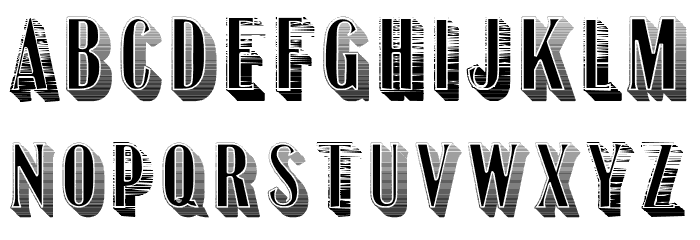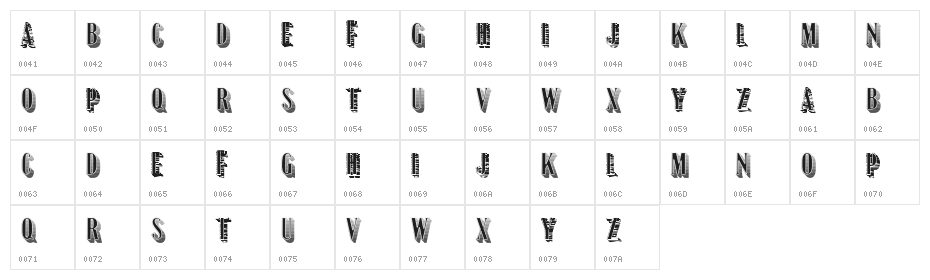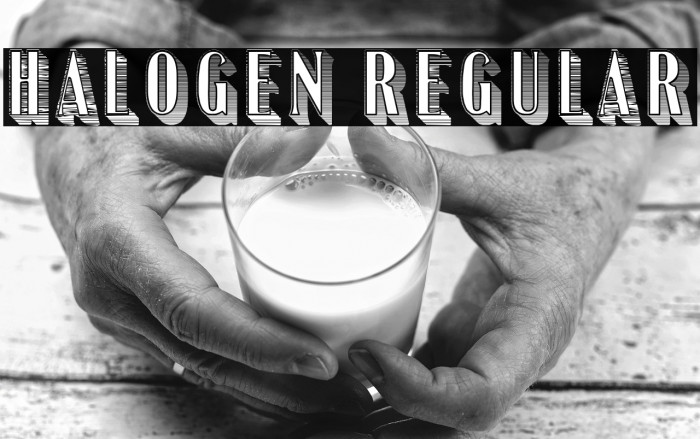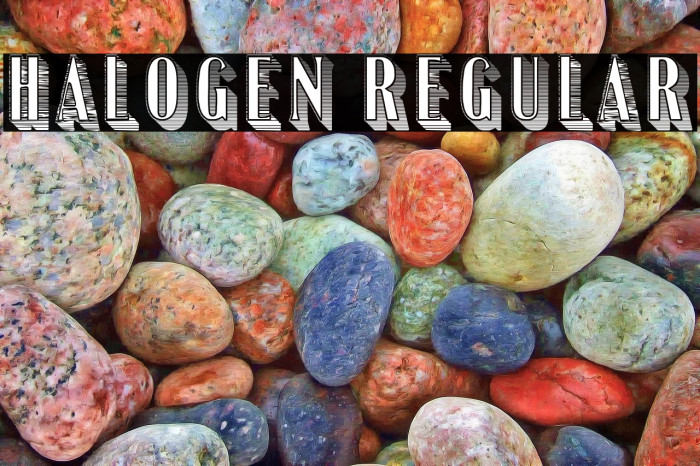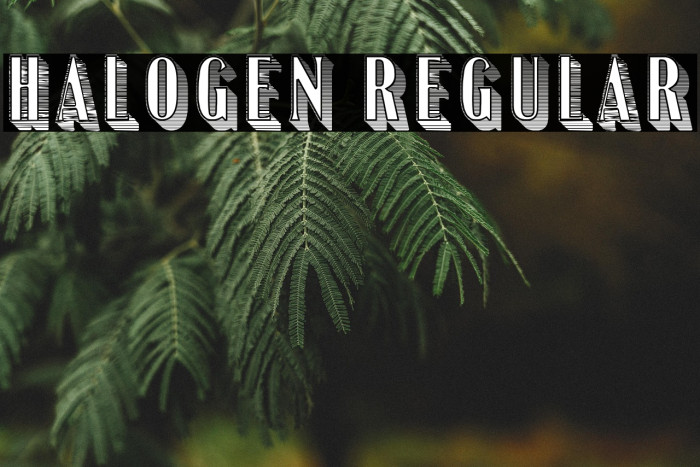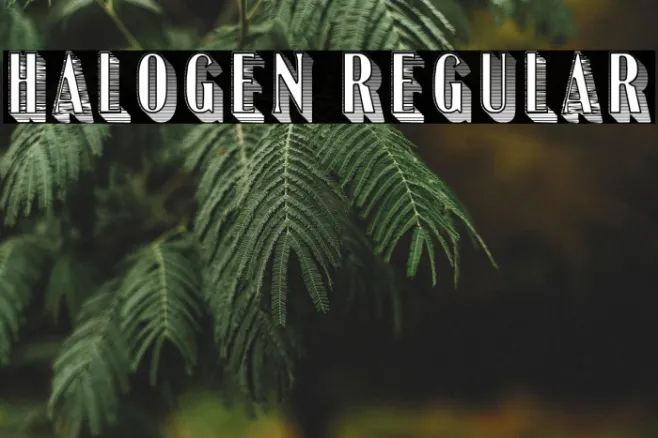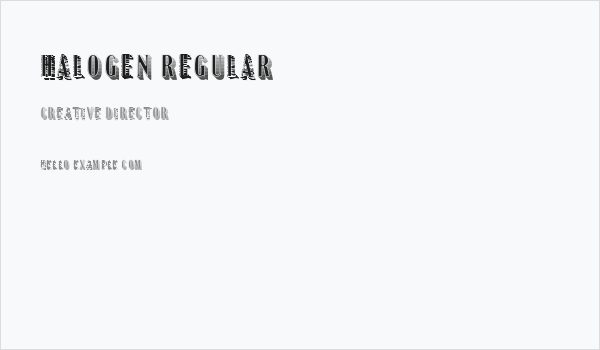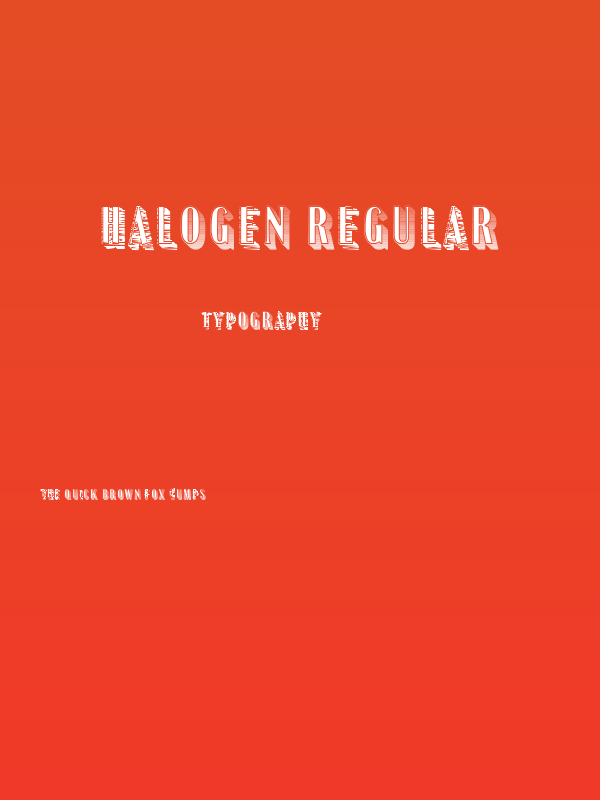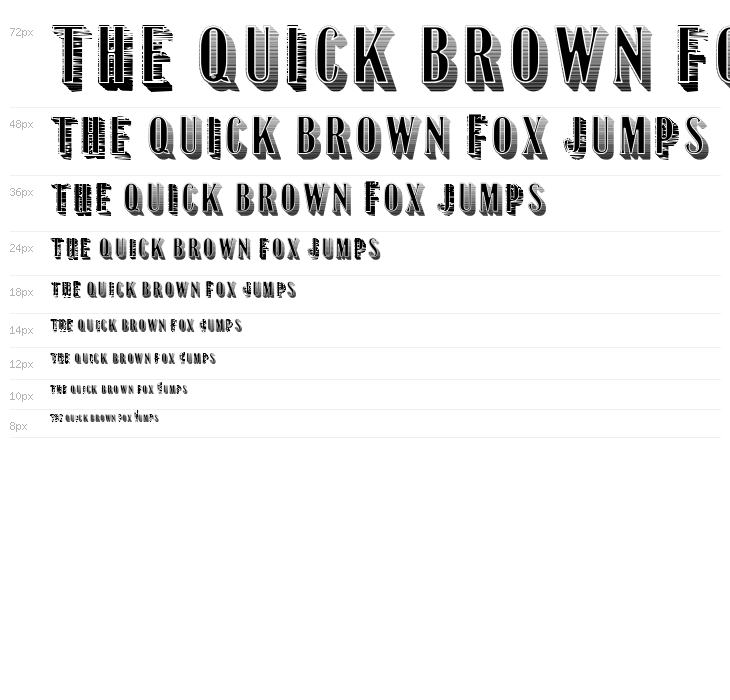
Halogen Regular Font
Halogen Regular Description
This font features a bold and dynamic design with a three-dimensional effect that gives each character a sense of depth and movement. The letters are capitalized and exhibit a strong, impactful presence, making them ideal for attention-grabbing headlines or titles. The shadowing effect adds a layer of complexity and visual interest, enhancing the overall aesthetic. The font maintains a consistent width across all characters, contributing to a uniform appearance. Its decorative style is both modern and playful, suitable for creative projects that require a touch of flair.
| Proposed Projects | Ideal for posters, logos, headlines, and any design requiring a bold, eye-catching typeface. |